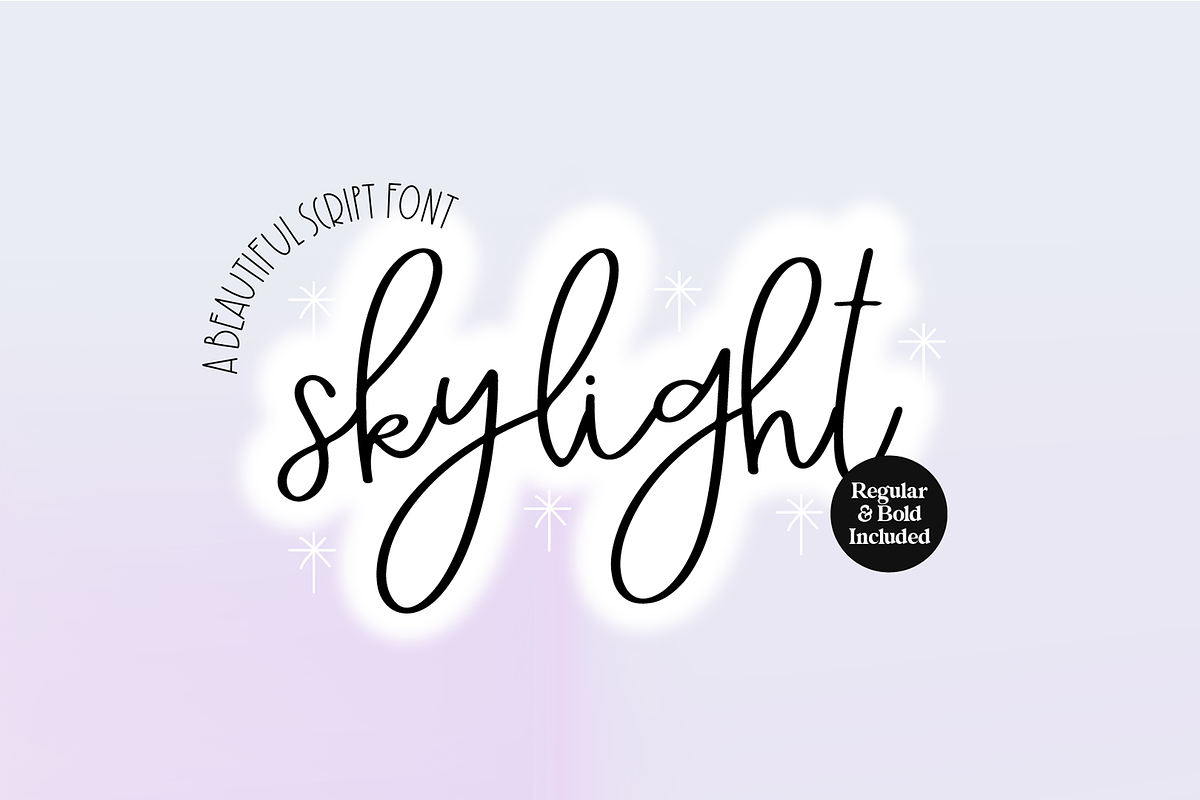
You must purchase this font for commercial use. However, you can download SKYLIGHT Elegant Brush Script Font Free Download for testing purposes. Skylight is a beautifully crafted brush script font with elegant and flowing strokes that mimic the look of hand-painted lettering. With its graceful and stylish design, this font is perfect for wedding invitations, logos, branding, greeting cards, and any project that requires a sophisticated, artistic touch.
The smooth, fluid curves of SKYLIGHT bring a personal, refined touch to your typography while maintaining readability. Whether you're designing for a luxury brand, crafting a romantic event invitation, or creating unique product packaging, this font will add elegance and personality to your work.